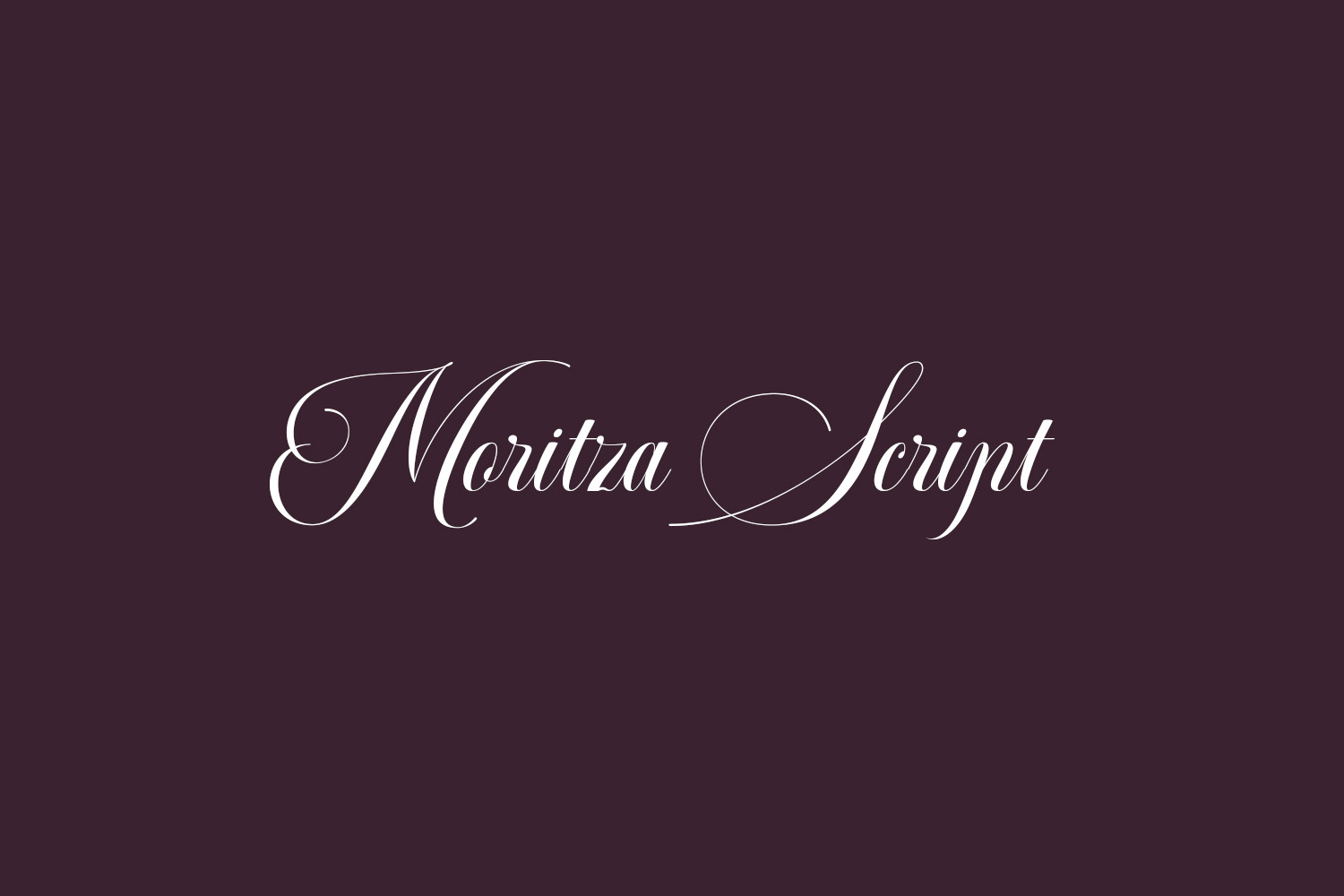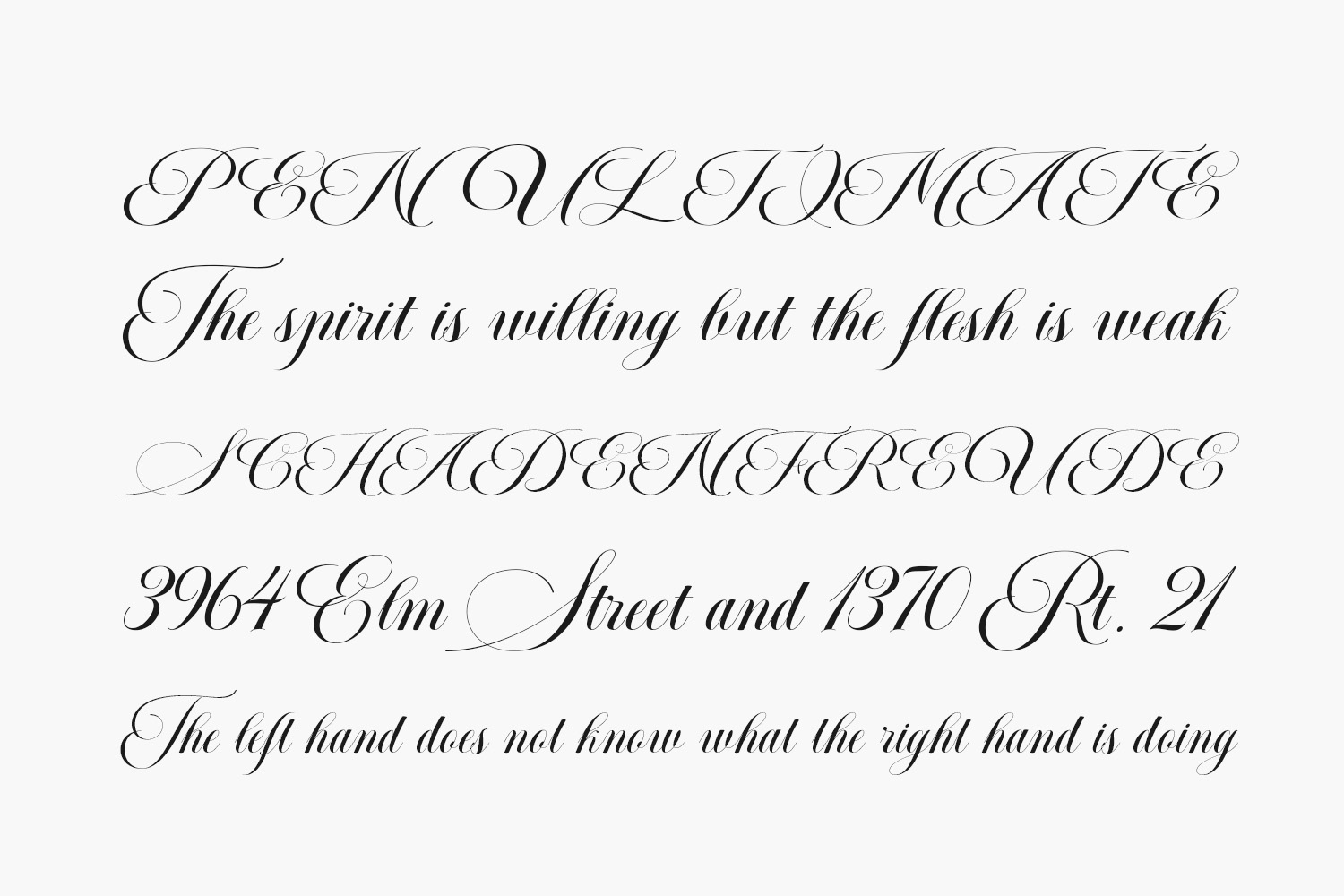
Moritza Script Free Font simplifies elegance into one truly outstanding handwritten font. It maintains its classy calligraphic influences while feeling contemporary and fresh. It features beautiful ornaments that will add a decorative touch to any project! This versatility will appeal to a wide range of crafty ideas, from letterheads and titles to stationery. Moritza Script Free Font was designed by Teuku Rinaldi Novianda and is free for personal use only. Please purchase the full version for commercial use.
Designed by Teuku Rinaldi Novianda